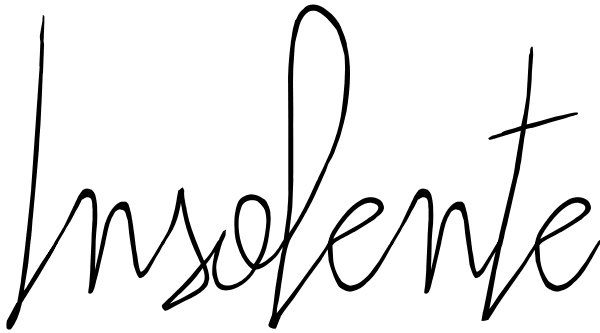
Insolente
Insolente is a versatile and realistic human script designed by Fanny Coulez and Julien Saurin for La Goupil Paris, perfect for giving your designs a personal touch. Insolente includes ligatures and double-letter ligatures. The family package...
Insolente Alternates